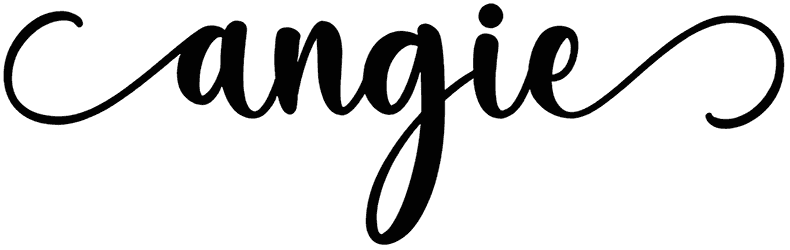
Angie Font
Get involved in Angie, a unique gift from RB Premium for any users or designers who need to assemble special displays. This poetry font with a complete set of alphabet gives you a comfy sense to design and invent without worrying.